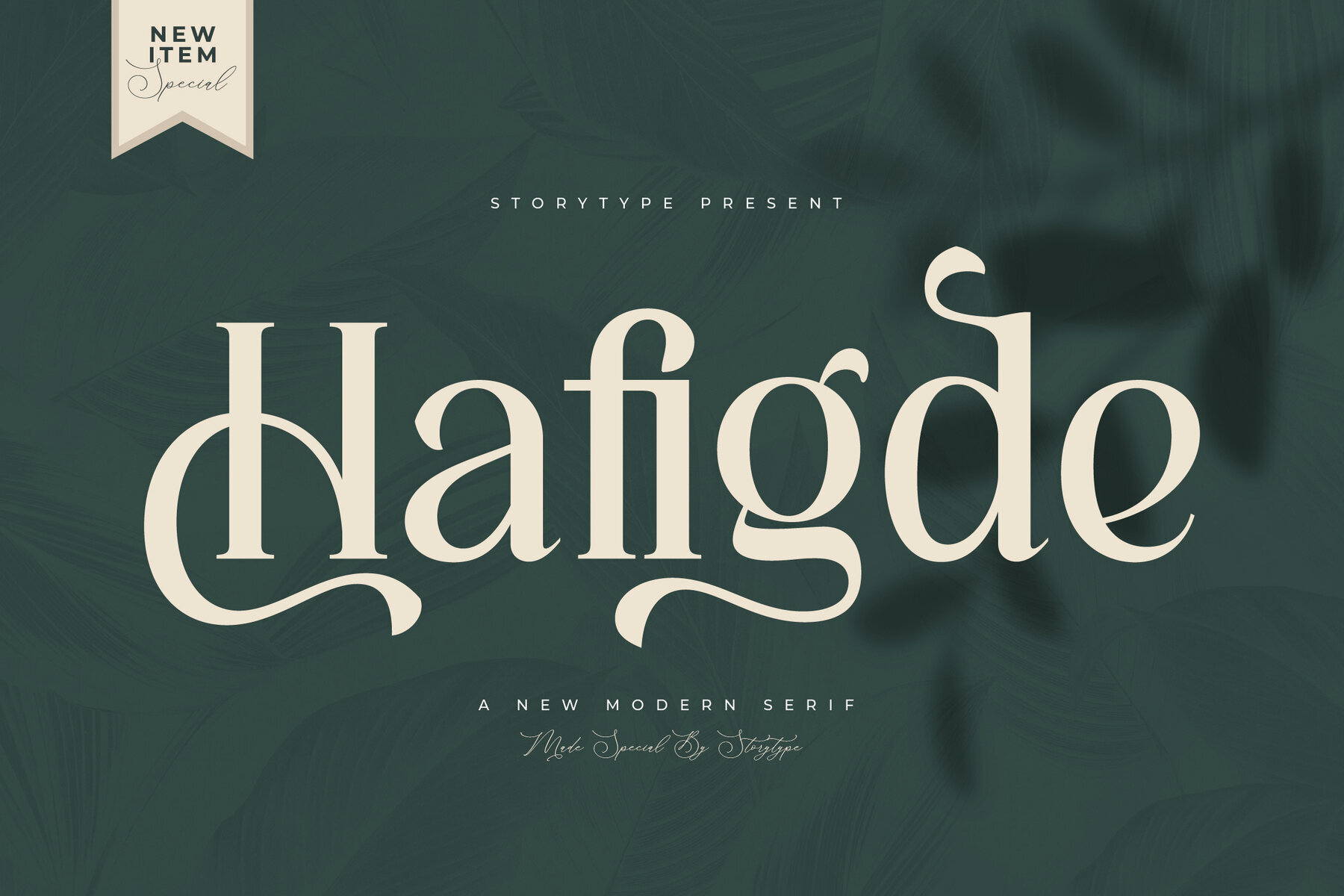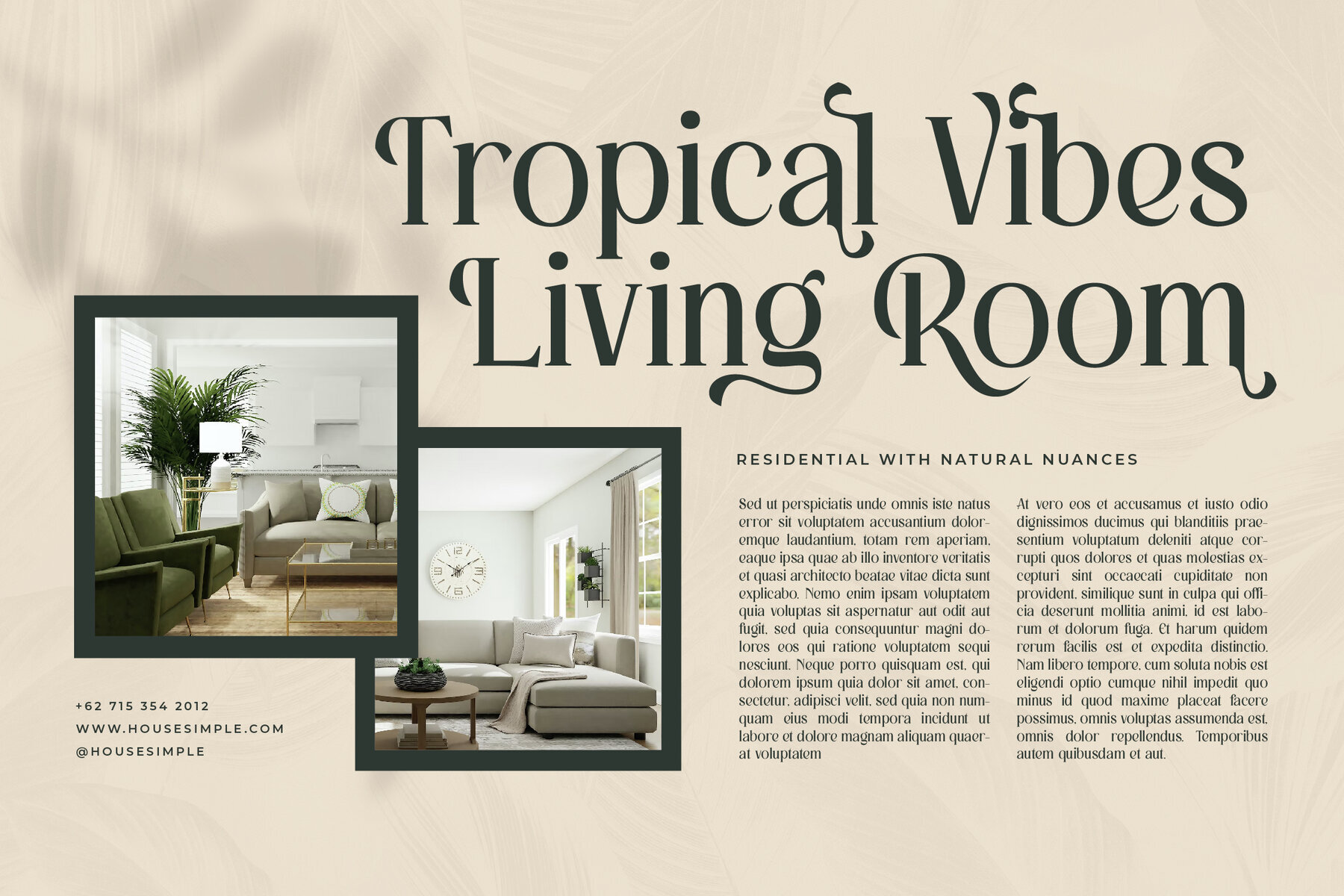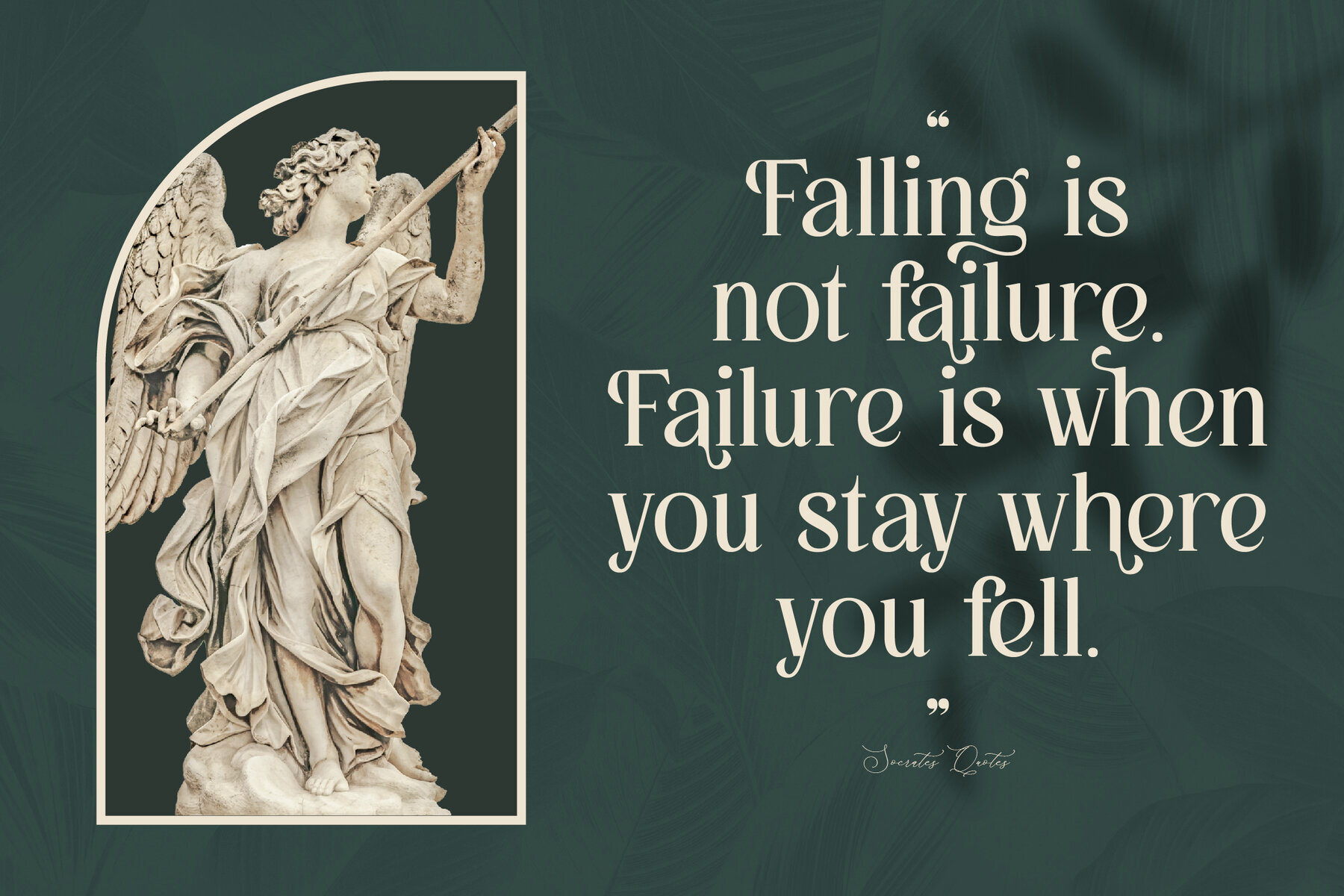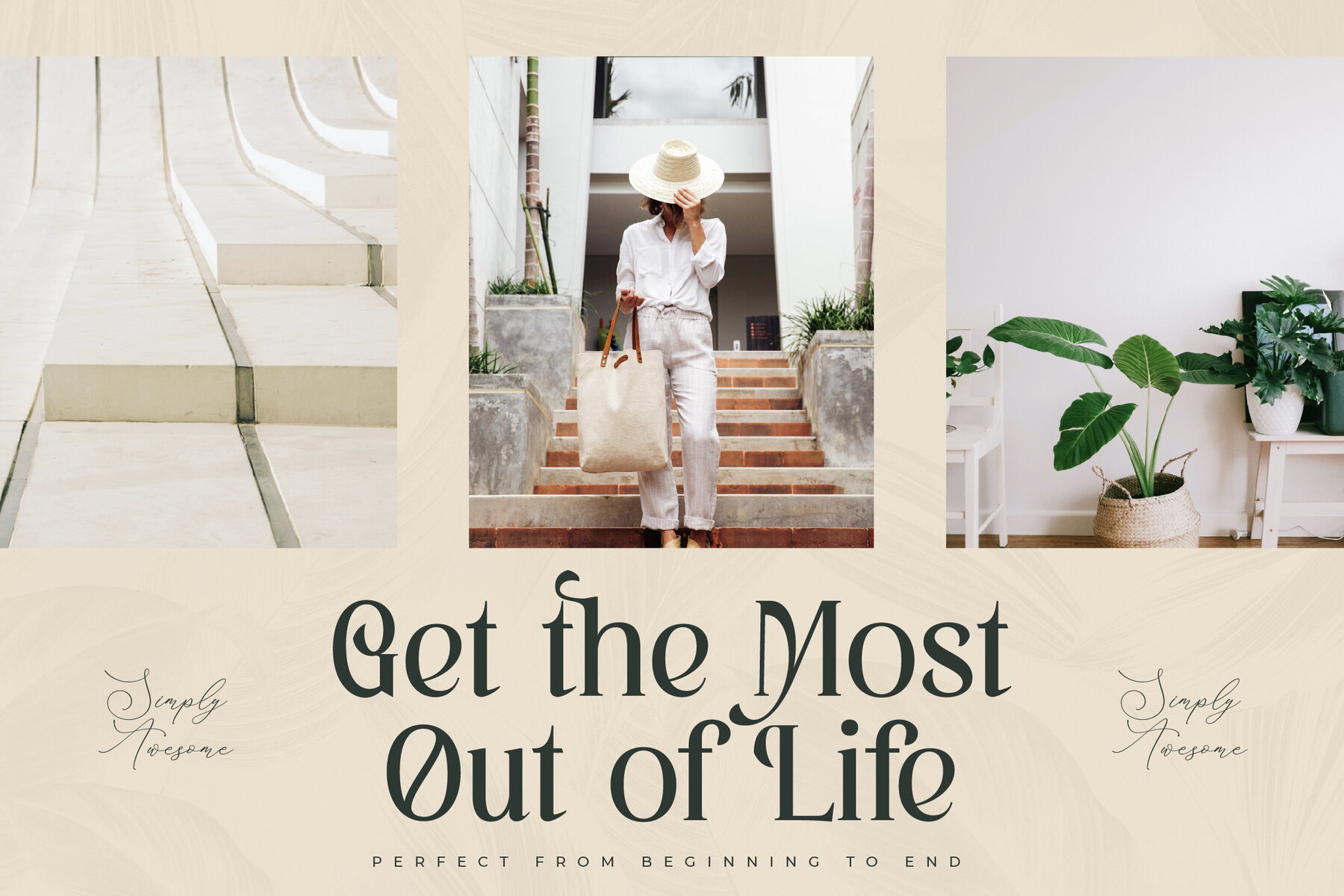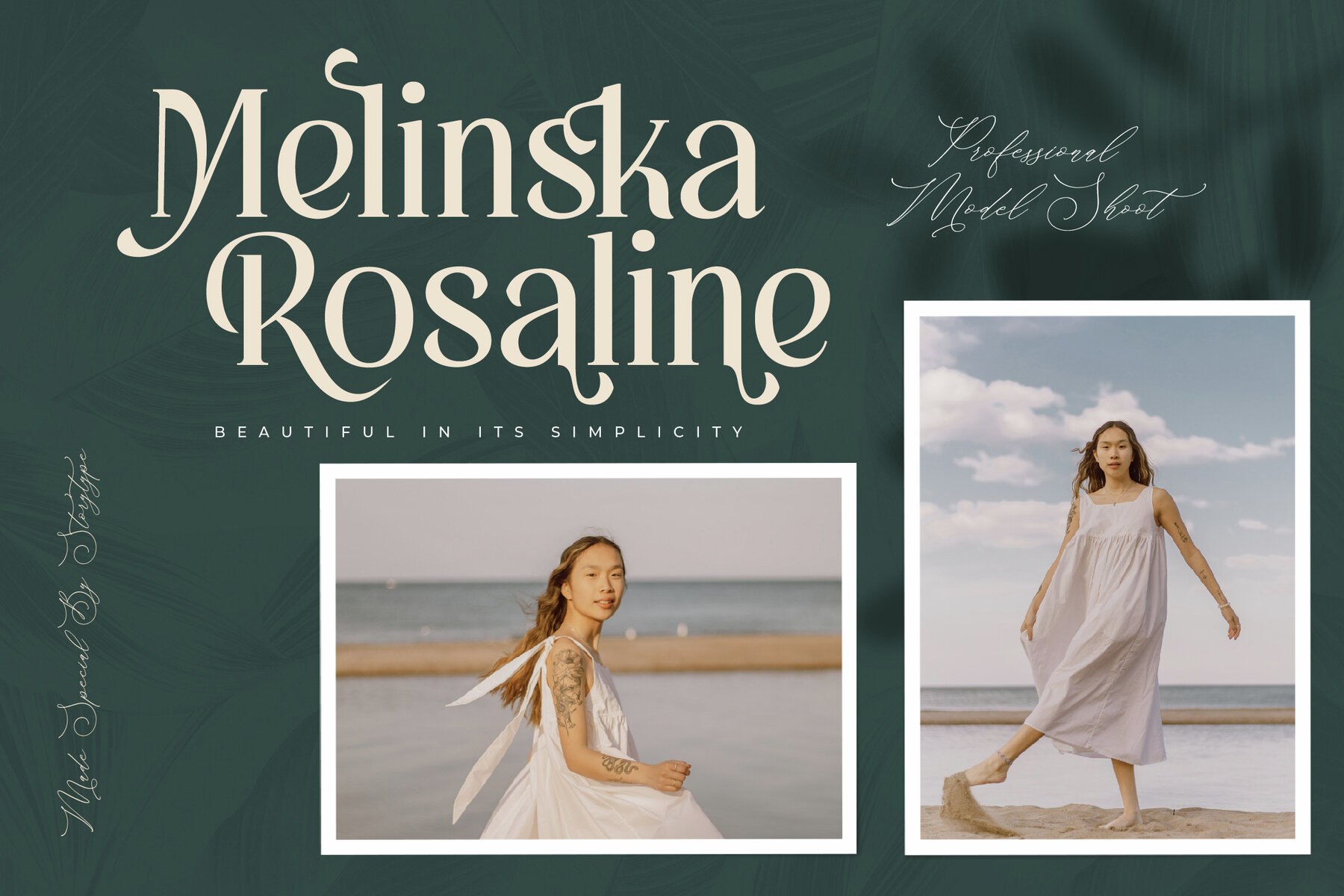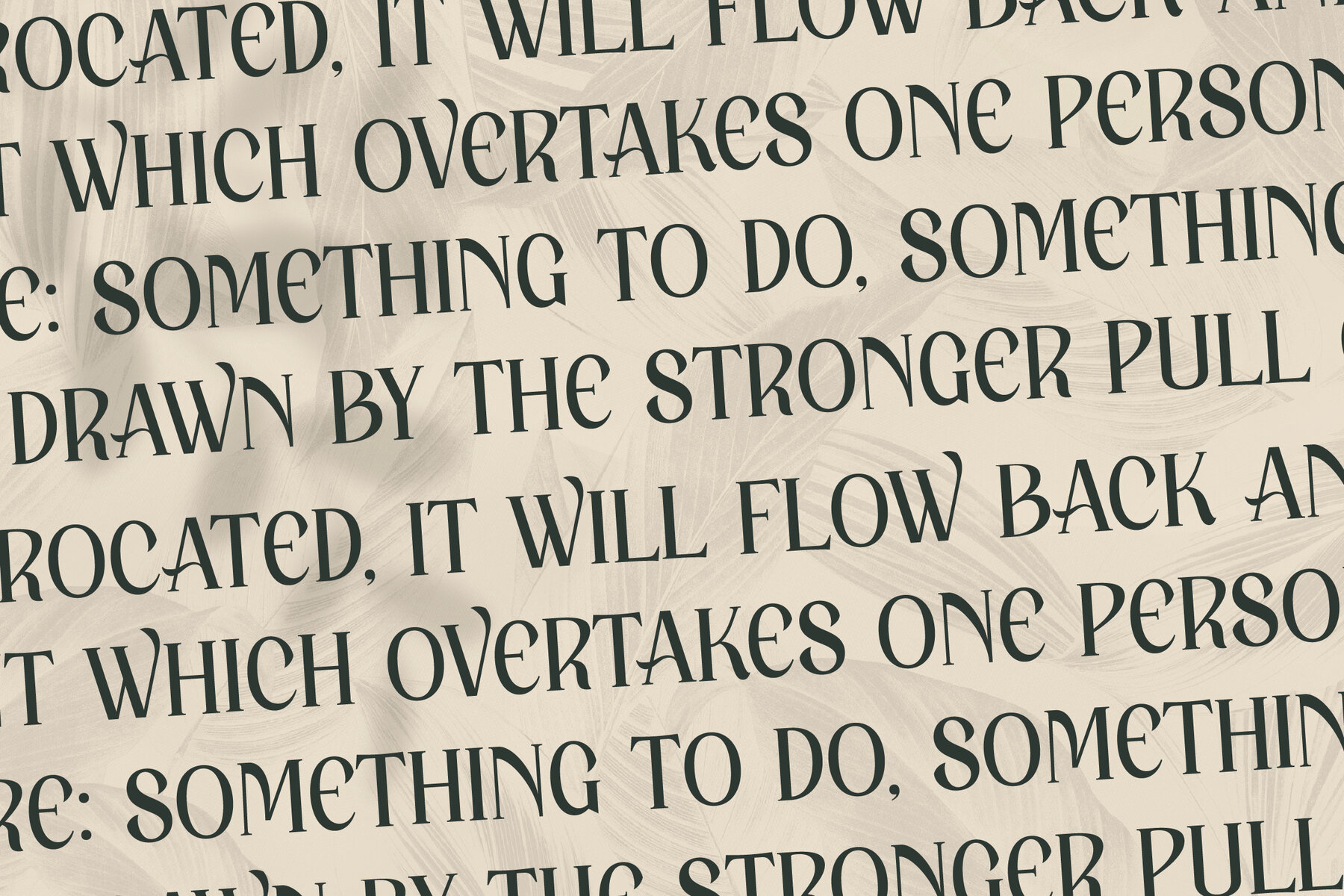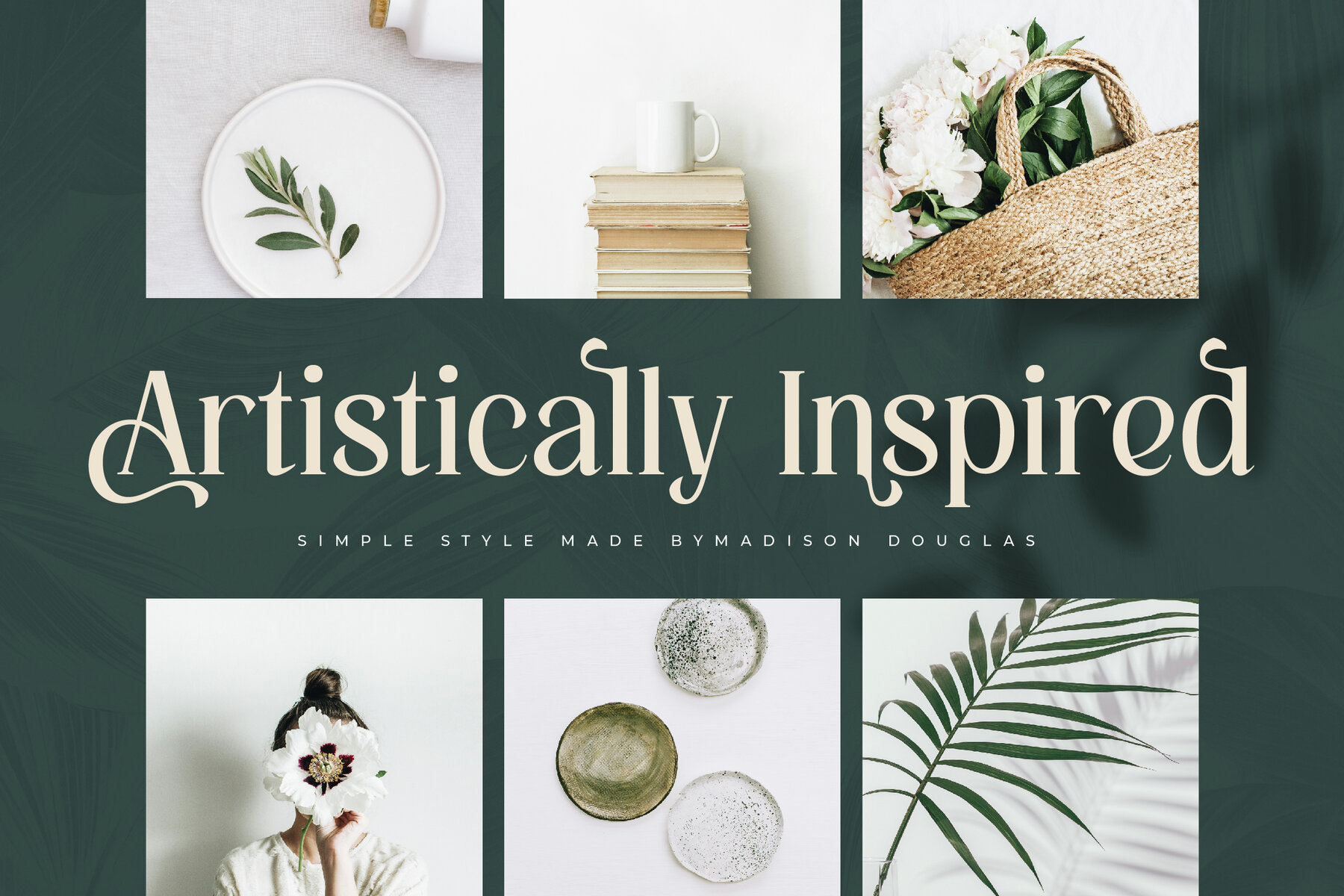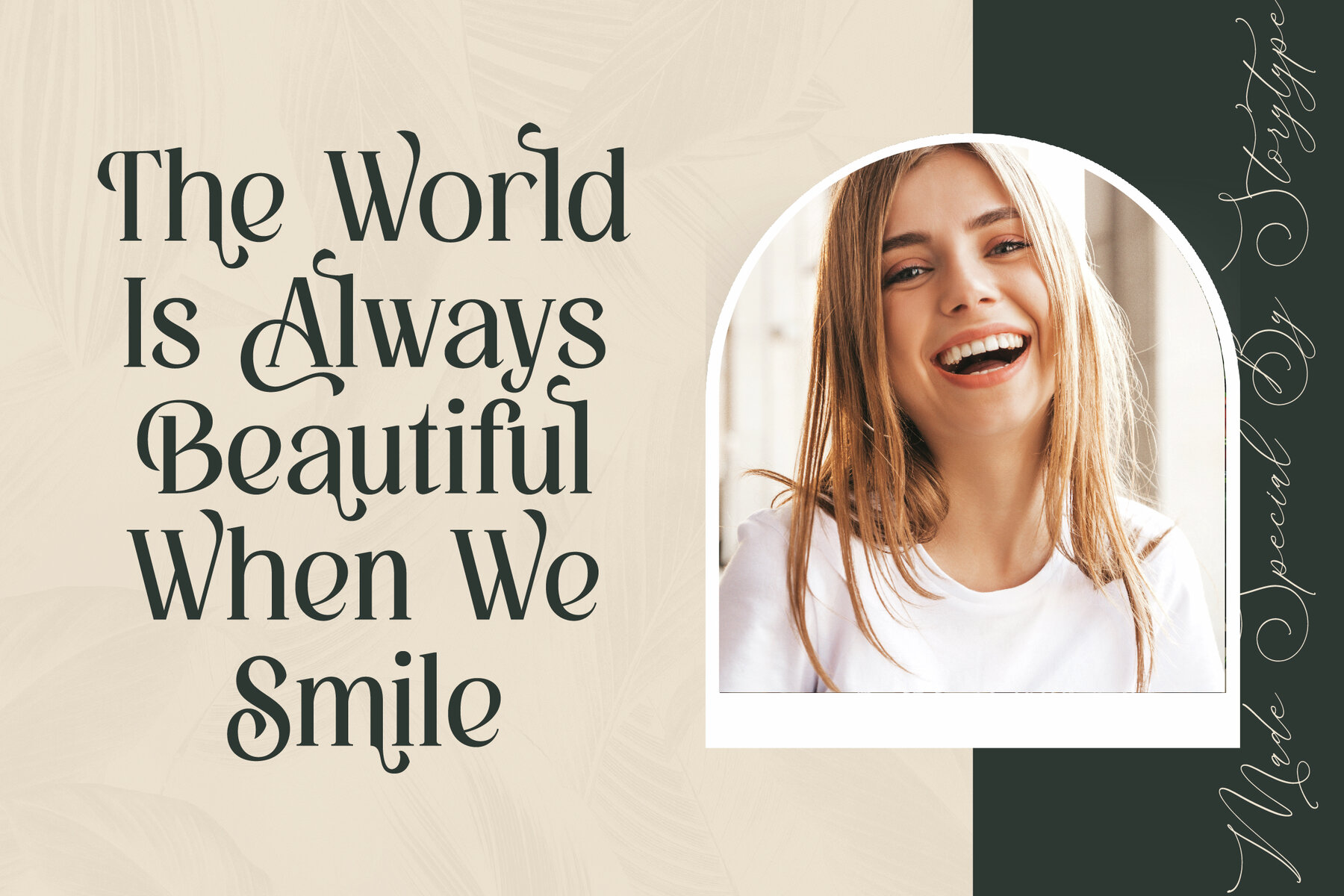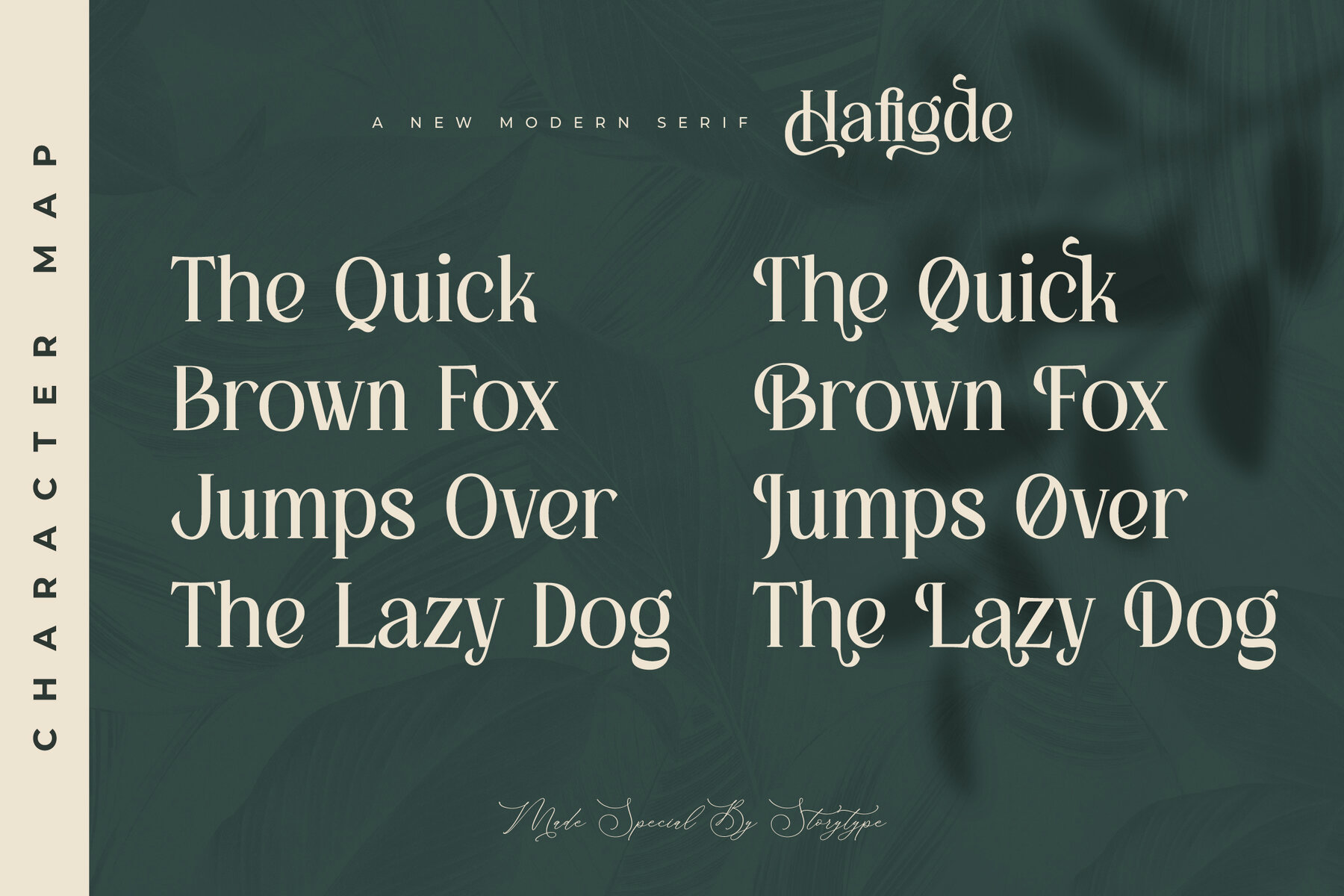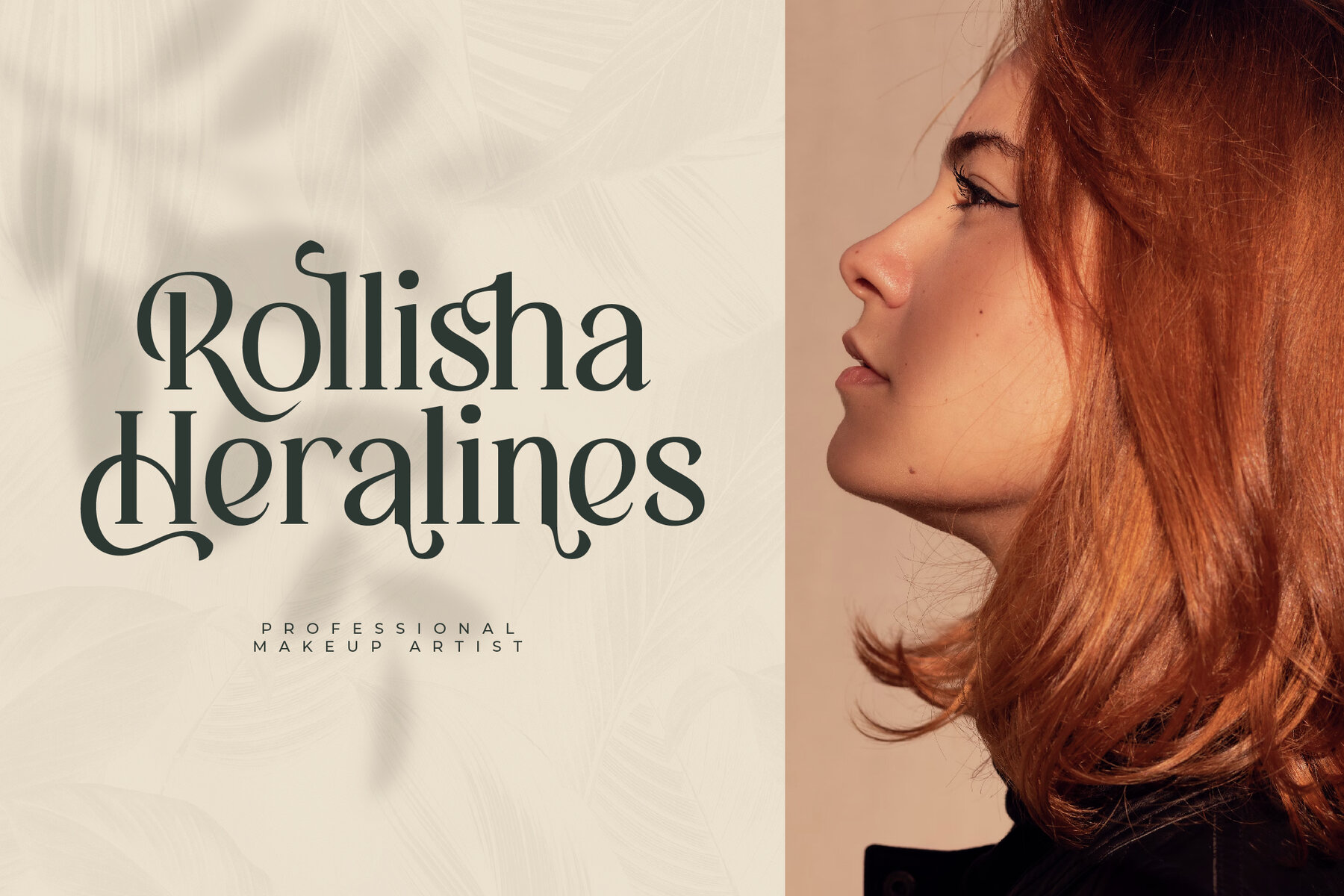
Hafigde Font
Introducing the exquisite Hafigde Typeface by Storytype Studio—where modern elegance meets classic style. This serif typeface is an ideal choice for those seeking a distinctive touch of sophistication. Perfect for luxury logos, book and movie titles, fashion branding, magazines, clothing, and inspirational quotes.Hafigde Typeface